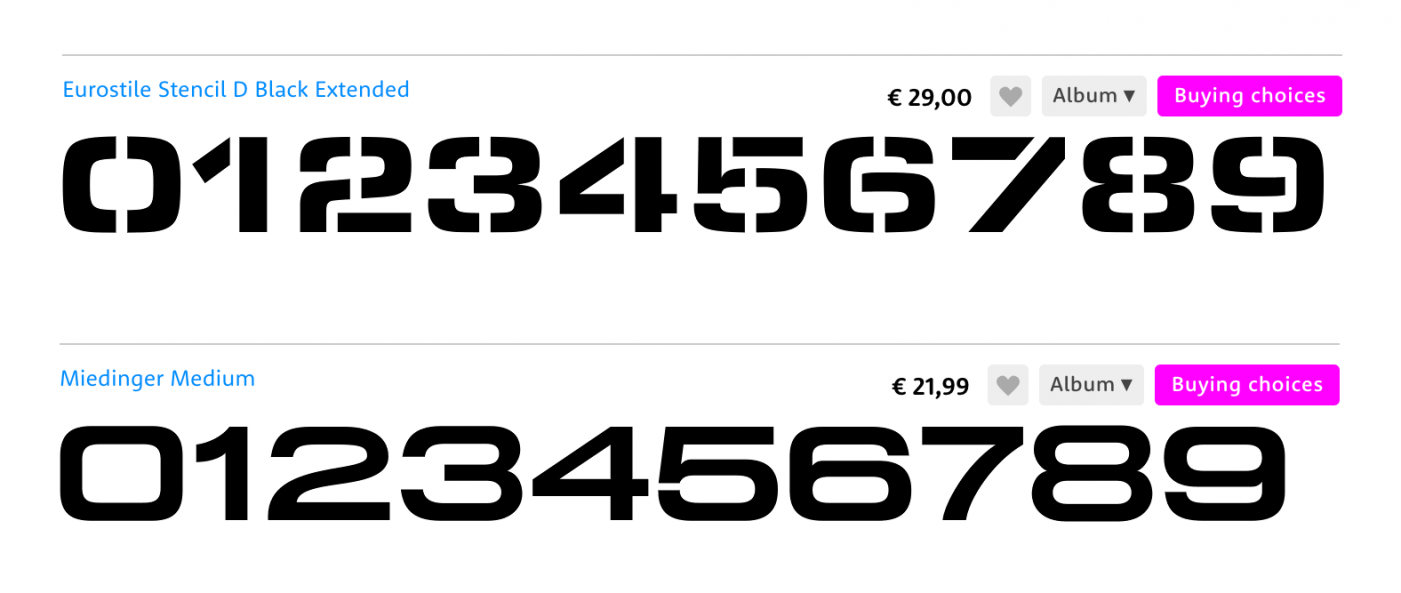
CB&Q Railroad Signal Font Need Advice
I am restoring a CB&Q (Chicago Burlington & Quincy) Railroad signal for our historical society.  On these signals were a number plate which identified by mile post the location of the signal.  These signs as best I can tell appeared in the late 1930s or 1940s.  They were originally stencil numbers but over the years were 'retouched' with a paint brush and the stencil lines disappeared.  I would like help identifying or finding a matching font that can be used to recreate  a set of stencils so a new number sign can be reproduced.  Any help or suggestions would be greatly appreciated.  Thanks in advance.
Eurostile Stencil Black Extended, as a Stencil, would get you not far, maybe no wide enough and too thick.
An idea if you could make your own Stencil for this case, would be trying using Max Miedinger Horizontal, “recently” digitized by Canada Type as Miedinger with more weights, as a base and make it Stencil, looks like the EULA would allow you to do it. Check the medium weight: